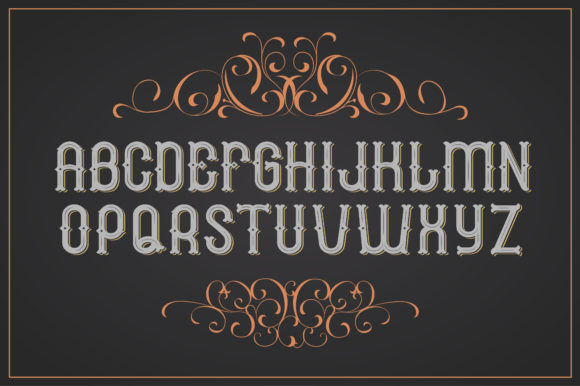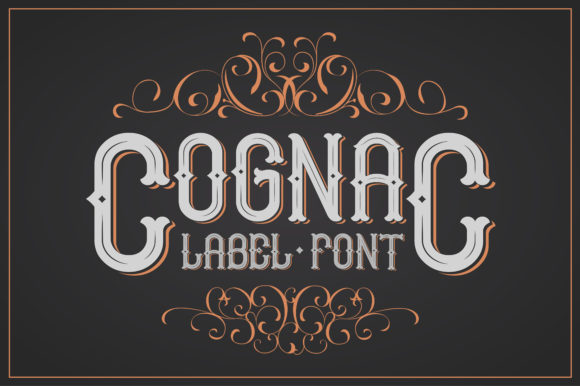
Cognac Font: Elevate Your Designs with a Vintage Flair
Cognac is a stunning, vintage-styled, bold display font that has been making waves in the design community. Its unique blend of classic and modern elements makes it the perfect addition to any design project. Whether you’re a digital designer, crafter, or simply someone who loves to create, Cognac Font is sure to become your new go-to.
Cognac Font is a versatile and highly adaptable font that can be used for a wide range of design projects. Its bold and eye-catching style makes it perfect for:
- Crafting: Add a touch of vintage elegance to your handmade crafts, such as scrapbooking, card making, and journaling.
- Digital Designing: Use Cognac Font to create stunning social media graphics, presentations, and website headers that are sure to grab attention.
- Presentations: Elevate your presentations with a font that’s both sophisticated and easy to read.
- Greeting Cards Making: Create beautiful and unique greeting cards for special occasions, such as birthdays, weddings, and holidays.
What Makes Cognac Font So Special?
Cognac Font is more than just a font – it’s a design statement. Here are some of its key features that make it stand out:
- Vintage Style: Cognac Font has a unique, vintage-inspired design that’s reminiscent of classic typography.
- Bold and Eye-Catching: The font’s bold style makes it perfect for headlines, titles, and other design elements that need to grab attention.
- Highly Legible: Despite its bold style, Cognac Font is highly legible, even at smaller sizes.
Tips for Using Cognac Font
Here are some tips for getting the most out of Cognac Font:
- Use it as a Headline Font: Cognac Font is perfect for headlines and titles, where its bold style can really make an impact.
- Pair it with Other Fonts: Experiment with pairing Cognac Font with other fonts to create a unique and visually appealing design.
- Experiment with Colors: Cognac Font looks great in a wide range of colors, so don’t be afraid to experiment and find the perfect hue for your design.
Cognac Font is a versatile and highly adaptable font that’s perfect for designers, crafters, and anyone who loves to create. Its unique blend of vintage style and modern elements makes it a must-have for any design project. Whether you’re looking to add a touch of elegance to your crafts, or simply want to create stunning digital designs, Cognac Font is the perfect choice.